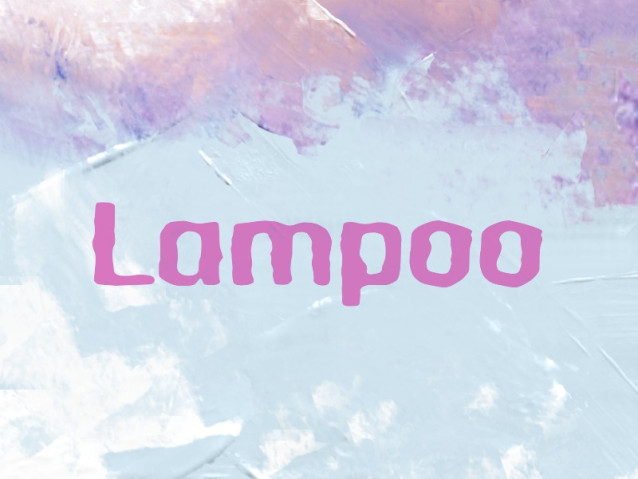
Lampoo Font
Lampoo Font is a simple and modern display font suitable for quotes, logos, headings, titles, and many more. Use it on any of your creative projects, and your designs will become outstanding!